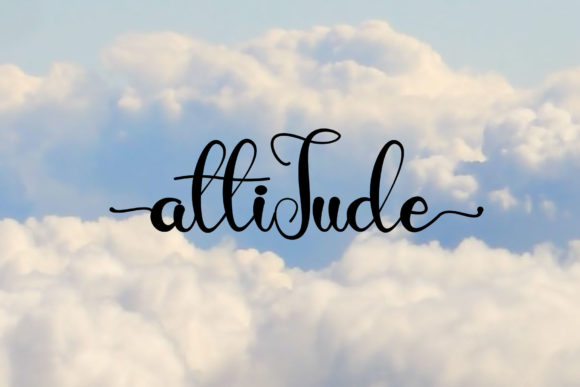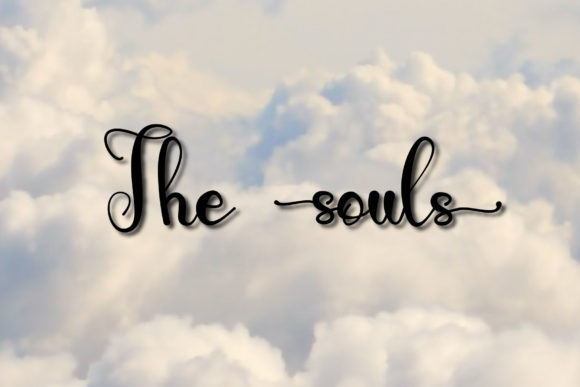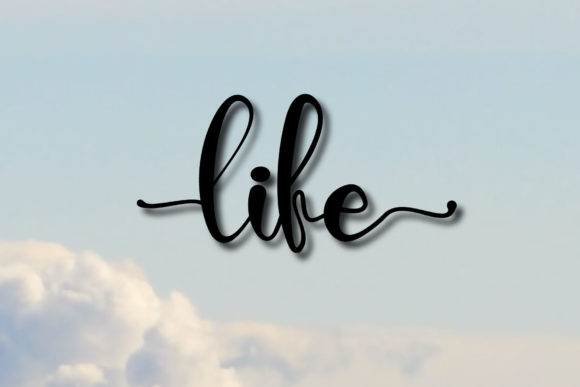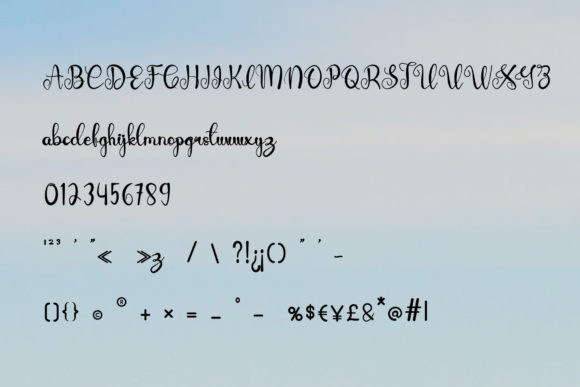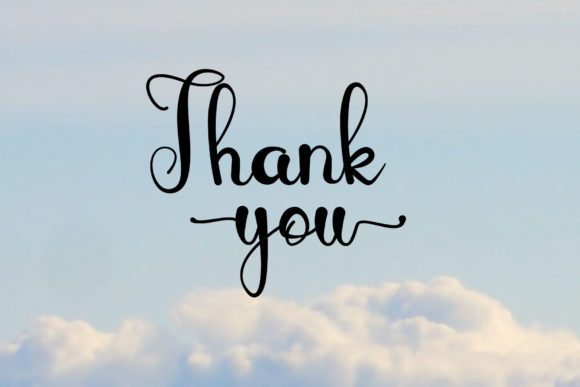
Attitude Font
About Attitude Font
AttitudeĀ is an enchanting handwritten font. This versatile script font has a wide spectrum of applications ranging from greeting cards to headlines. Attitude is PUA encoded which means you can access all of the glyphs and swashes with ease!Ā